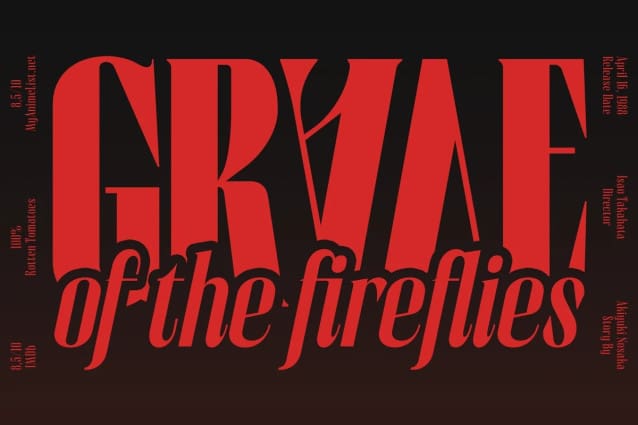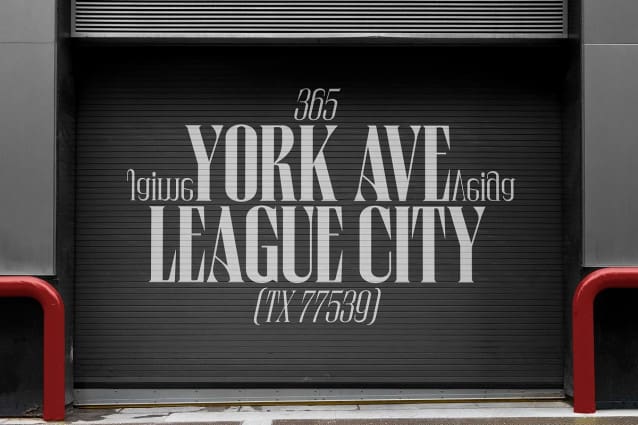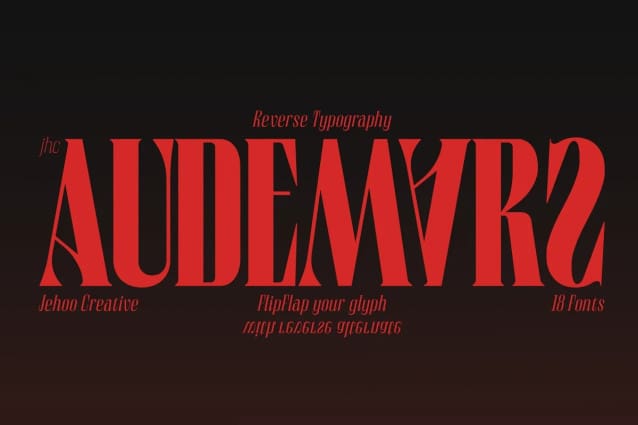
JHC Audemars Font
JHC Audemars Font, an impeccably crafted condensed serif font exuding a resolute and refined character. Distinguished by its unique inverted letter shapes, this font embraces an avant-garde aesthetic. Boasting a comprehensive range of weights from Thin to Black, along with an elegant italic style, JHC Audemars ensures versatile application in various design contexts. Ideal for sophisticated branding and editorial endeavors, this font effortlessly merges strength with sophistication, delivering a commanding and memorable typographic presence.